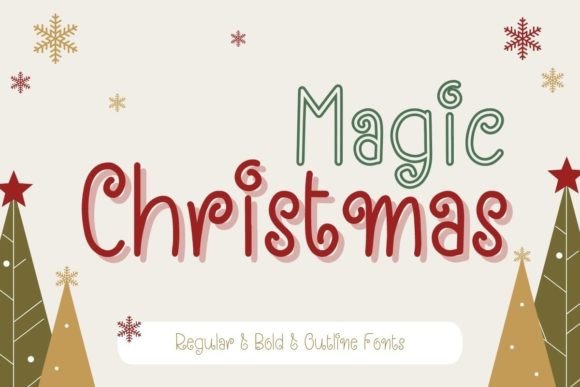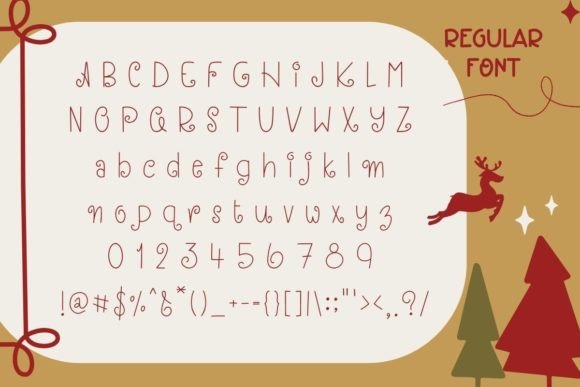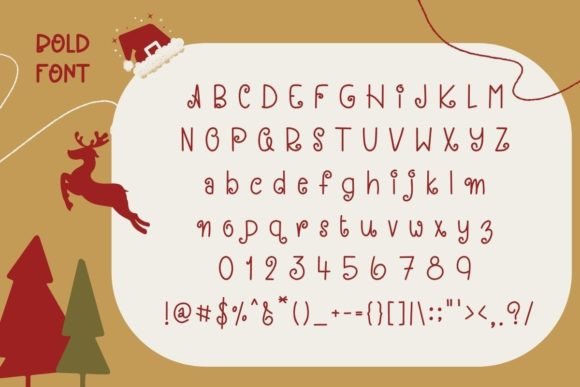
**Magic Christmas Font: Fun and Quirky Handwritten Festivity**
Introducing Magic Christmas, a fun and slightly quirky handwritten font that radiates casual charm, perfect for a wide range of design ideas and, especially, for capturing the spirit of Christmas. This font brings a touch of festivity and whimsy to your creative projects, making it an ideal choice for various design applications. Here’s why Magic Christmas is the perfect font for infusing your designs with holiday cheer:
**Festive Charm:** Magic Christmas embodies the festive charm of the holiday season, making it an excellent choice for Christmas-themed designs.
**Fun and Quirky:** The font’s fun and quirky style add a playful touch to your projects, evoking the joyful spirit of Christmas.
**Versatile Application:** Magic Christmas is versatile and can be used for a wide variety of design ideas, making it suitable for banners, content, mugs, cards, shirts, stationery, social media posts, and more.
**Casual Elegance:** Despite its casual charm, Magic Christmas maintains an air of elegance, creating a harmonious balance between festivity and sophistication.
**Christmas Theme:** This font is perfect for creating designs that match the Christmas theme, making it an ideal choice for holiday-related projects.
**Wide Range of Possibilities:** With Magic Christmas, you can explore a wide range of creative possibilities, infusing your designs with holiday spirit.
**Captivating Festivity:** The font captures the captivating festivity of Christmas, making your designs feel warm, inviting, and filled with cheer.
**Holiday Whimsy:** Magic Christmas brings a touch of holiday whimsy to your text, creating a sense of wonder and delight.
**Customizable Design:** The font can be customized to match your design vision, allowing you to create personalized and unique holiday-themed creations.
**Eye-Catching Appeal:** Magic Christmas’s eye-catching appeal ensures that your Christmas-themed designs stand out and capture the attention of your audience.
**Personalized Holiday Greetings:** Use this font to create personalized holiday greetings, cards, and messages that convey warmth and sincerity.
**Warm and Inviting:** Magic Christmas’s warm and inviting style evokes feelings of togetherness and joy, making it perfect for spreading holiday cheer.
**Social Media-Friendly:** Whether it’s social media posts, banners, or digital content, Magic Christmas is designed to shine in the digital space.
**Creating Memories:** Design with Magic Christmas to create memorable holiday designs that capture the essence of the season.
**Holiday Marketing:** Use this font for holiday marketing campaigns, promotions, and advertisements that resonate with customers during this special time of year.
**Expressive Typography:** Magic Christmas allows for expressive typography that adds depth and personality to your holiday-themed projects.
**Joyful Creativity:** Embrace the joyful creativity that Magic Christmas offers, infusing your designs with a sense of wonder and merriment.
**Festive Branding:** Elevate your brand’s holiday branding with Magic Christmas, creating a cohesive and festive look that leaves a lasting impression.
**Christmas Spirit:** The font embodies the true spirit of Christmas, making it an ideal choice for conveying the holiday message and spreading joy.
**Design with Ease:** Designing with Magic Christmas is easy and enjoyable, allowing you to bring your holiday ideas to life effortlessly.
**Festive Mood:** Capture the festive mood of Christmas with this font, creating designs that radiate positivity and happiness.
**Holiday Greetings:** Design holiday greetings, cards, and messages that resonate with recipients and fill their hearts with holiday cheer.
**Family and Friends:** Use Magic Christmas to create designs that celebrate time spent with family and friends during the holiday season.
**Unique Festive Touch:** This font adds a unique and charming festive touch to your designs, making them unforgettable and heartwarming.
**Holiday Magic:** With Magic Christmas, you can infuse your designs with holiday magic that enchants your audience and spreads joy.
**Crafting Memories:** Use this font for crafting memories through holiday-themed designs that people cherish and remember.
**Simplified Joy:** Magic Christmas simplifies the joy of the holiday season, allowing you to convey the essence of Christmas effortlessly.
**Personal and Heartfelt:** Create personal and heartfelt holiday messages with Magic Christmas, connecting with your audience on a deeper level.
**Embrace Festivity:** Embrace the festivity of the holiday season with Magic Christmas, and let your designs reflect the joy and warmth of this special time.
**Designing Holiday Traditions:** Use this font to design holiday traditions, capturing the essence of family gatherings, gift-giving, and holiday festivities.
**Celebrate with Style:** Celebrate the holiday season with style, creativity, and a touch of whimsy by incorporating Magic Christmas into your designs.
**Unleash Your Imagination:** Unleash your imagination with Magic Christmas and explore endless possibilities for creating holiday-themed designs that bring joy and happiness.
**Holiday Joy:** Design with Magic Christmas and share the holiday joy with your audience, creating memorable moments through your creative work.
**Holiday Sparkle:** Add a touch